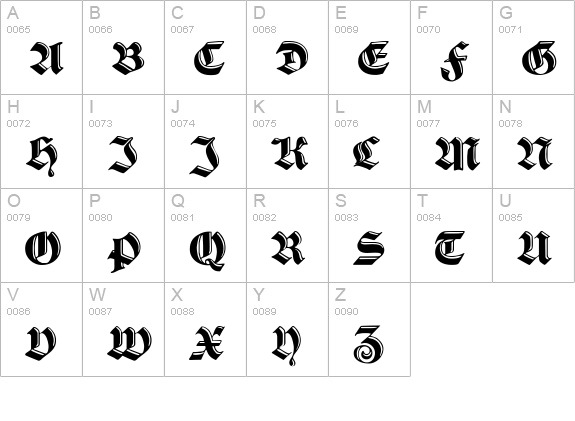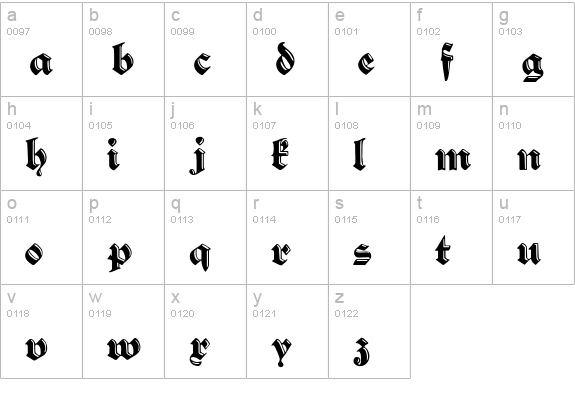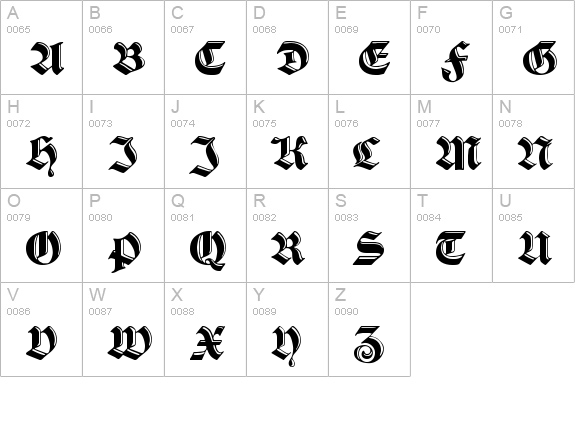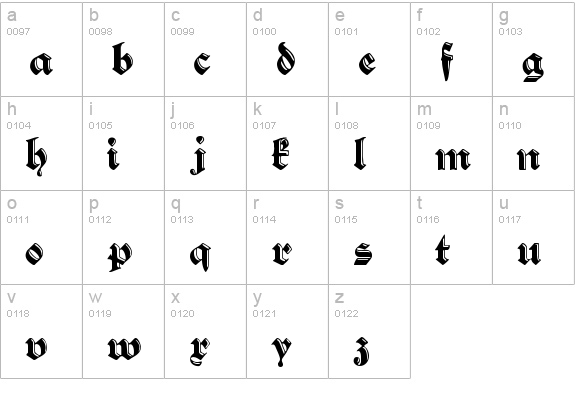
SchwabachDeko Font Details
SchwabachDeko font is a stunning display typeface that exudes elegance and charm. Its unique and intricate design draws inspiration from the ornate letterforms of traditional Schwabach calligraphy, creating a truly eye-catching and distinctive appearance. This font is perfect for adding a touch of sophistication to any design project. Whether you're creating wedding invitations, logos, posters, or any other creative endeavor, SchwabachDeko font will effortlessly elevate your work to new heights. One of the best features of SchwabachDeko font is that it is completely free to download at FontsMarket.com. This means that you can easily access this remarkable font and incorporate it into your designs without any cost. Its availability as a free font ensures that creativity is not limited by budget constraints. The attention to detail in SchwabachDeko font is truly remarkable. Each letterform is meticulously crafted, with swirls, flourishes, and intricate details that add a sense of luxury and sophistication. The characters flow seamlessly together, creating a harmonious and visually pleasing composition. SchwabachDeko font is versatile and can be used in a variety of design styles. Whether you prefer a vintage, retro look or a modern and sleek aesthetic, this font can adapt to your needs. Its timeless appeal makes it a fantastic choice for both print and digital applications. Overall, SchwabachDeko font is a must-have for any designer or typographer looking to add a touch of elegance and sophistication to their projects. With its stunning design and the fact that it is freely available to download at FontsMarket.com, there is no reason not to incorporate this remarkable font into your creative endeavors.